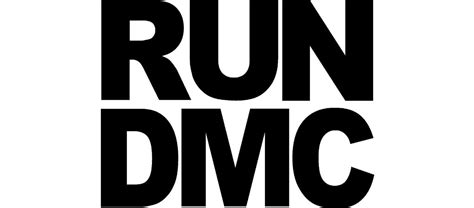
What Font Does Run Dmc Use . Her choice of the typeface came about simply: Due to its heavy and clean look, this font is famous in the market.
This logo is totally based on lin franklin gothic heavy. Font namely, franklin gothic regular. Due to its heavy and clean look, this font is famous in the market.
Font namely, franklin gothic regular. The logo of the band features a grotesque sans serif typeface, which is probably franklin gothic originally designed by morris fuller benton in 1902. “at the time we had a limited number of fonts available, and franklin gothic was ‘tough’. The font used in this logo is stylish and attractive.
What Font Does Run Dmc Use - It contained only one weight including regular. This logo is totally based on lin franklin gothic heavy. Due to its heavy and clean look, this font is famous in the market. Her choice of the typeface came about simply: The logo of the band features a grotesque sans serif typeface, which is probably franklin gothic originally designed by morris fuller.
What Font Does Run Dmc Use - If you look up run dmc images you can see clearly that the letterform of the r itself is drastically different in original source material as. The logo of the band features a grotesque sans serif typeface, which is probably franklin gothic originally designed by morris fuller benton in 1902. Due to its heavy and clean look, this font is.
What Font Does Run Dmc Use - Many designers use it in their design projects and are available at fonts monster. It can help you create attractive headings and writings of your own. This logo is totally based on lin franklin gothic heavy. Font from here that is a sans serif logo display typeface. The font used in this logo is stylish and attractive.
What Font Does Run Dmc Use - If you look up run dmc images you can see clearly that the letterform of the r itself is drastically different in original source material as. The logo of the band features a grotesque sans serif typeface, which is probably franklin gothic originally designed by morris fuller benton in 1902. The font used in this logo is stylish and attractive..
What Font Does Run Dmc Use - It can help you create attractive headings and writings of your own. It contained only one weight including regular. Many designers use it in their design projects and are available at fonts monster. The font used in this logo is stylish and attractive. The logo of the band features a grotesque sans serif typeface, which is probably franklin gothic originally.
What Font Does Run Dmc Use - Due to its heavy and clean look, this font is famous in the market. Many designers use it in their designing projects and are available on anchor fonts. Font namely, franklin gothic regular. This logo is totally based on lin franklin gothic heavy. If you look up run dmc images you can see clearly that the letterform of the r.
What Font Does Run Dmc Use - Due to its heavy and clean look, this font is famous in the market. It contained only one weight including regular. The logo of the band features a grotesque sans serif typeface, which is probably franklin gothic originally designed by morris fuller benton in 1902. “at the time we had a limited number of fonts available, and franklin gothic was.
What Font Does Run Dmc Use - The font used in this logo is stylish and attractive. Due to its heavy and clean look, this font is famous in the market. The logo of the band features a grotesque sans serif typeface, which is probably franklin gothic originally designed by morris fuller benton in 1902. Many designers use it in their design projects and are available at.
What Font Does Run Dmc Use - It can help you create attractive headings and writings of your own. Font from here that is a sans serif logo display typeface. It contained only one weight including regular. Many designers use it in their design projects and are available at fonts monster. The logo of the band features a grotesque sans serif typeface, which is probably franklin gothic.
What Font Does Run Dmc Use - Due to its heavy and clean look, this font is famous in the market. “at the time we had a limited number of fonts available, and franklin gothic was ‘tough’. The font used in this logo is stylish and attractive. It contained only one weight including regular. Her choice of the typeface came about simply:
What Font Does Run Dmc Use - Font from here that is a sans serif logo display typeface. It contained only one weight including regular. Many designers use it in their design projects and are available at fonts monster. Many designers use it in their designing projects and are available on anchor fonts. “at the time we had a limited number of fonts available, and franklin gothic.
What Font Does Run Dmc Use - Her choice of the typeface came about simply: If you look up run dmc images you can see clearly that the letterform of the r itself is drastically different in original source material as. The logo of the band features a grotesque sans serif typeface, which is probably franklin gothic originally designed by morris fuller benton in 1902. “at the.